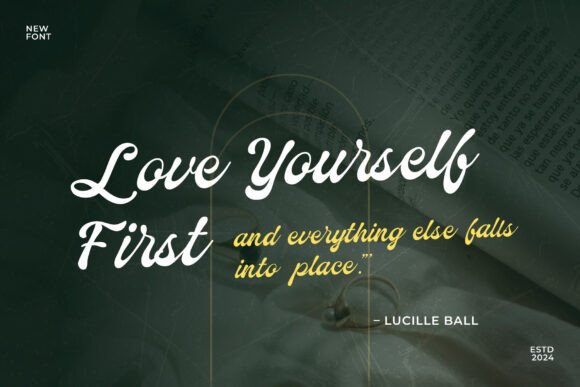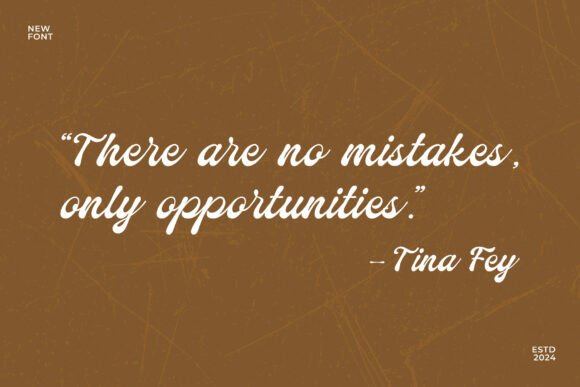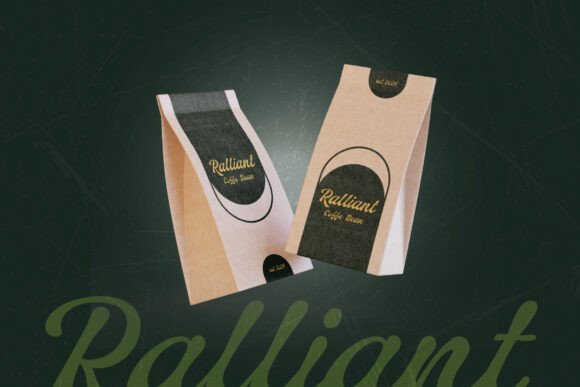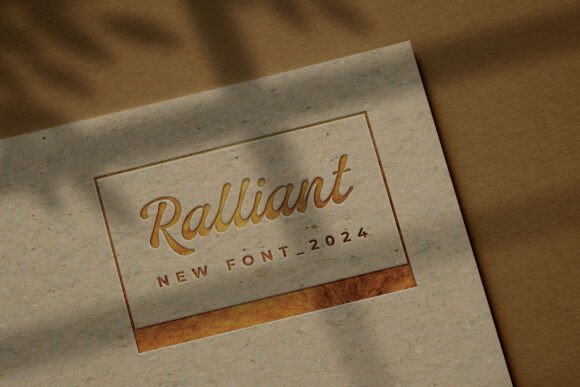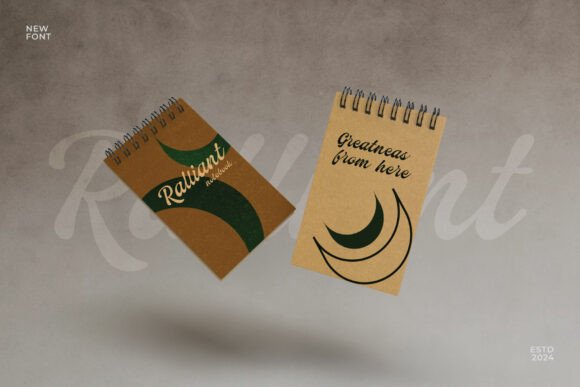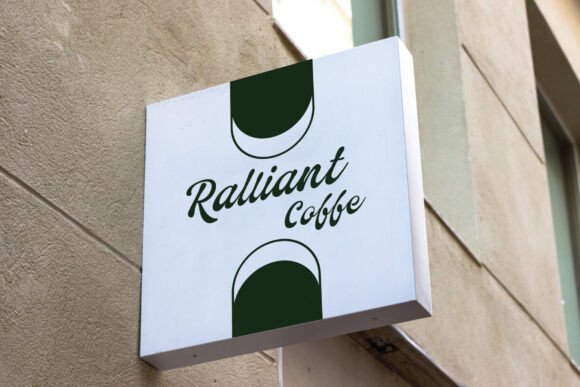
Introduction to Ralliant Font Font
Fonts play a crucial role in design, and the Ralliant Font font is a typeface that brings both character and versatility to any project. Whether you’re working on a branding project, a website, or a print design, the Ralliant Font font offers a unique style that can elevate your work.
RALLIANT – Brush Script Font RALLIANT is a bold and expressive brush script font that brings energy and creativity to any project.
Its natural, hand-drawn strokes make it perfect for adding a personal touch to your designs .
Key Features of Ralliant Font Font
Why Choose Ralliant Font Font?
The Ralliant Font font is more than just a typeface – it’s a design tool that helps you communicate your message with style and clarity. Its unique character set and versatile design make it suitable for a wide range of applications, from elegant invitations to bold headlines.
With its carefully crafted letterforms and balanced proportions, the Ralliant Font font ensures readability and visual appeal across all mediums.
What makes Ralliant Font font special?
The Ralliant Font font stands out with its unique design, exceptional readability, and versatility across various design applications.